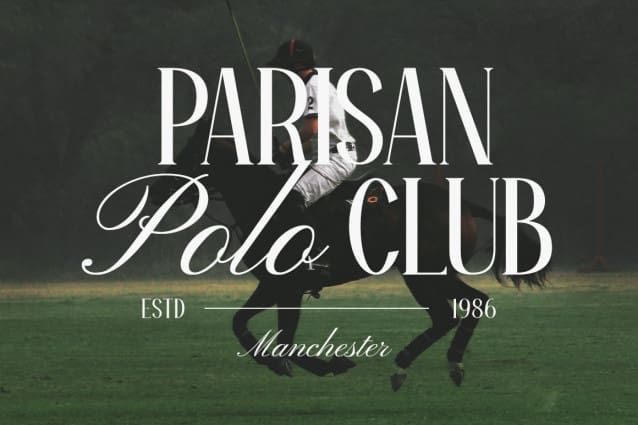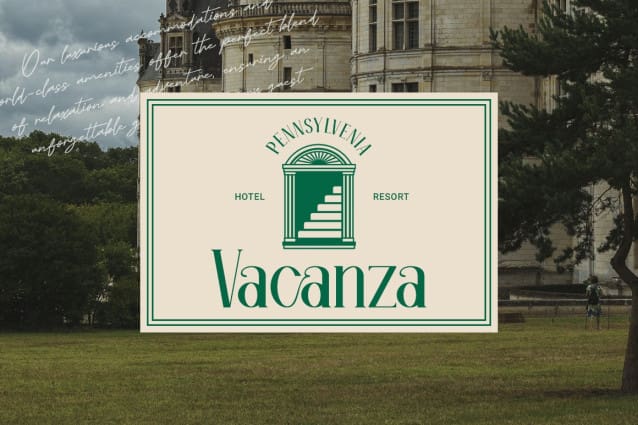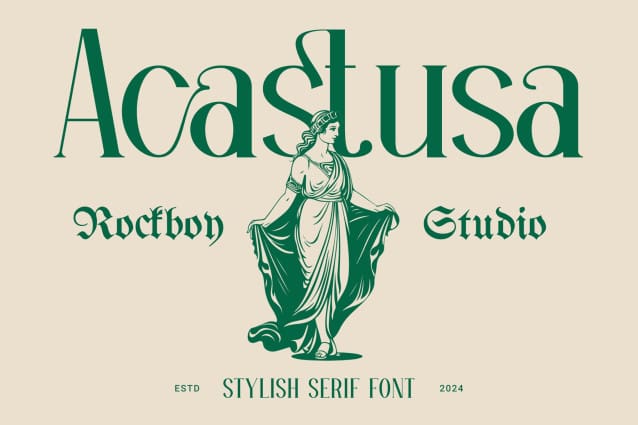
Acastusa Font
Acastusa Font is an elegant, thin-lettered and distinctive serif font. Suitable for a wide variety of designs thanks to its clean and neat style, this font has the potential to become your favorite font, no matter the occasion!